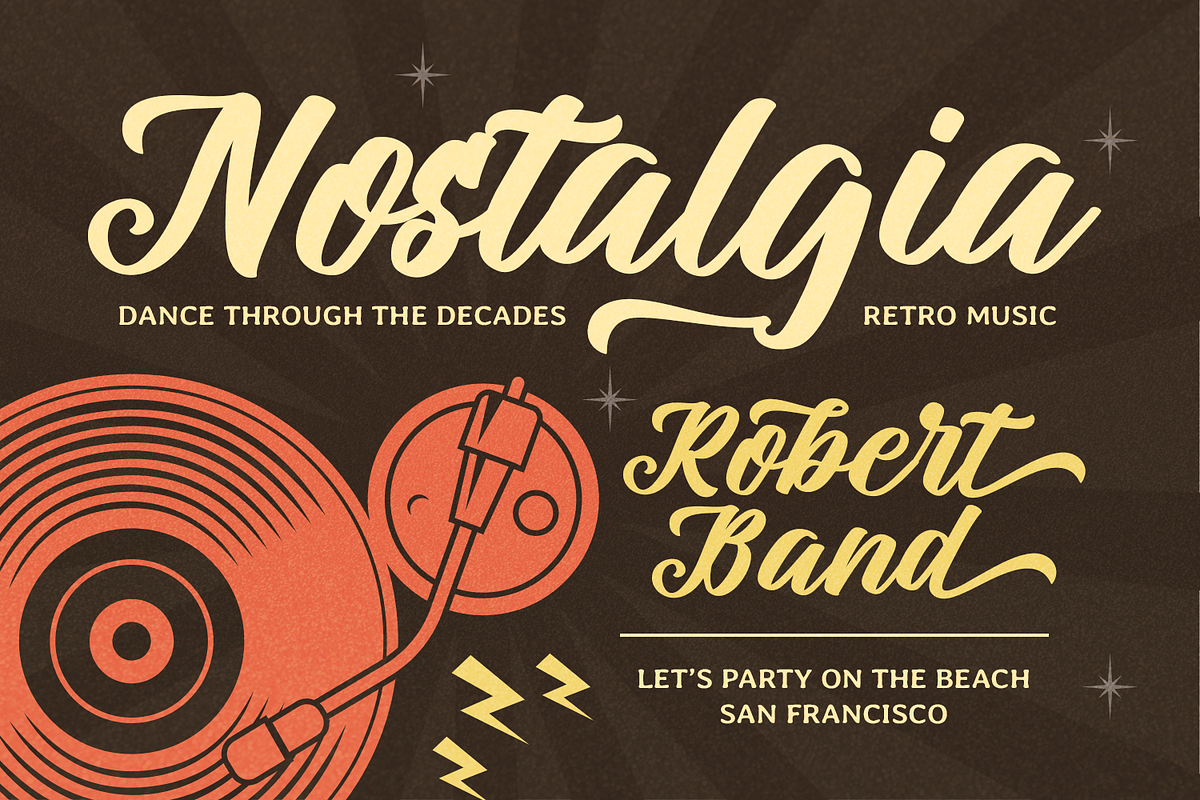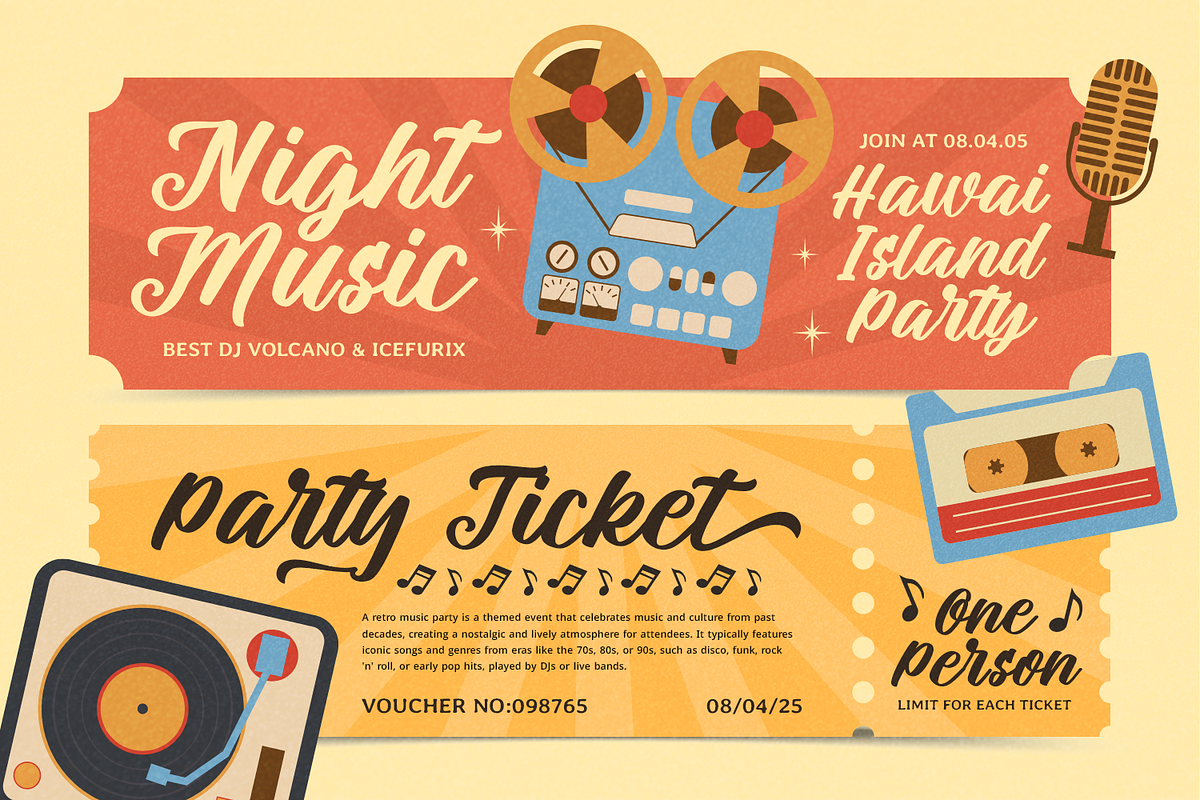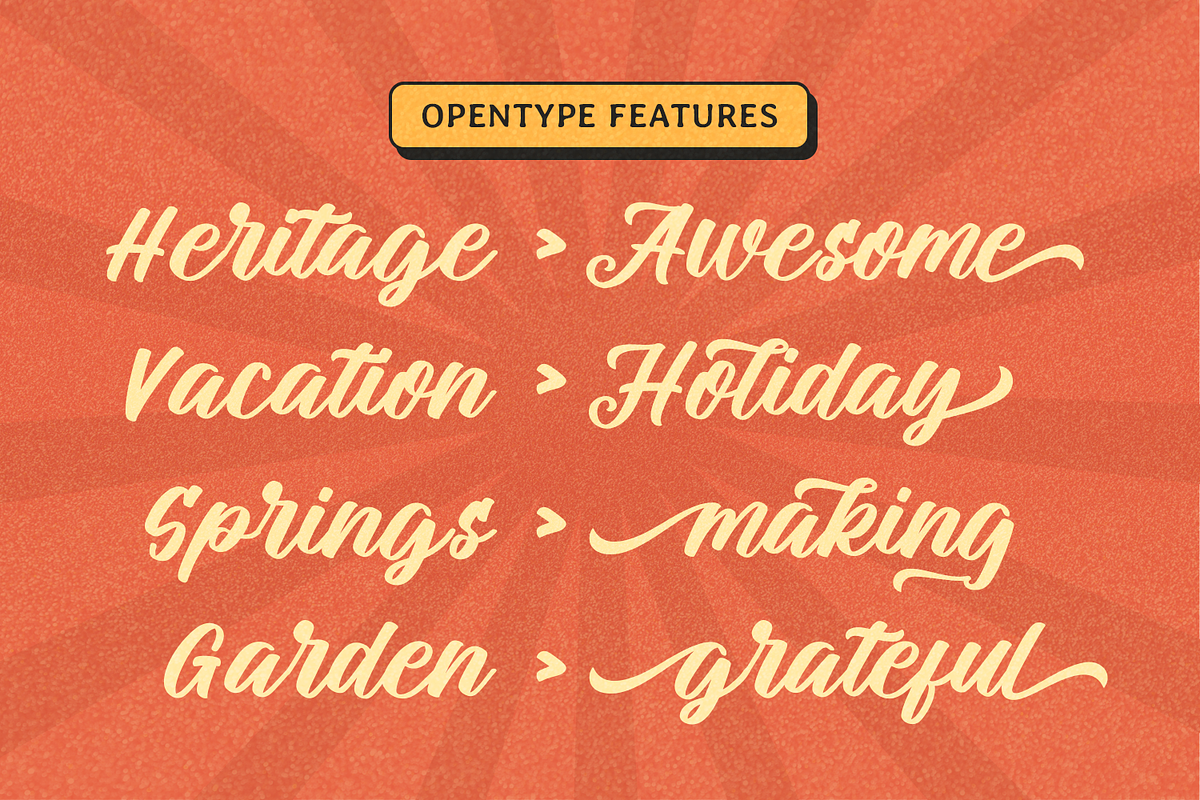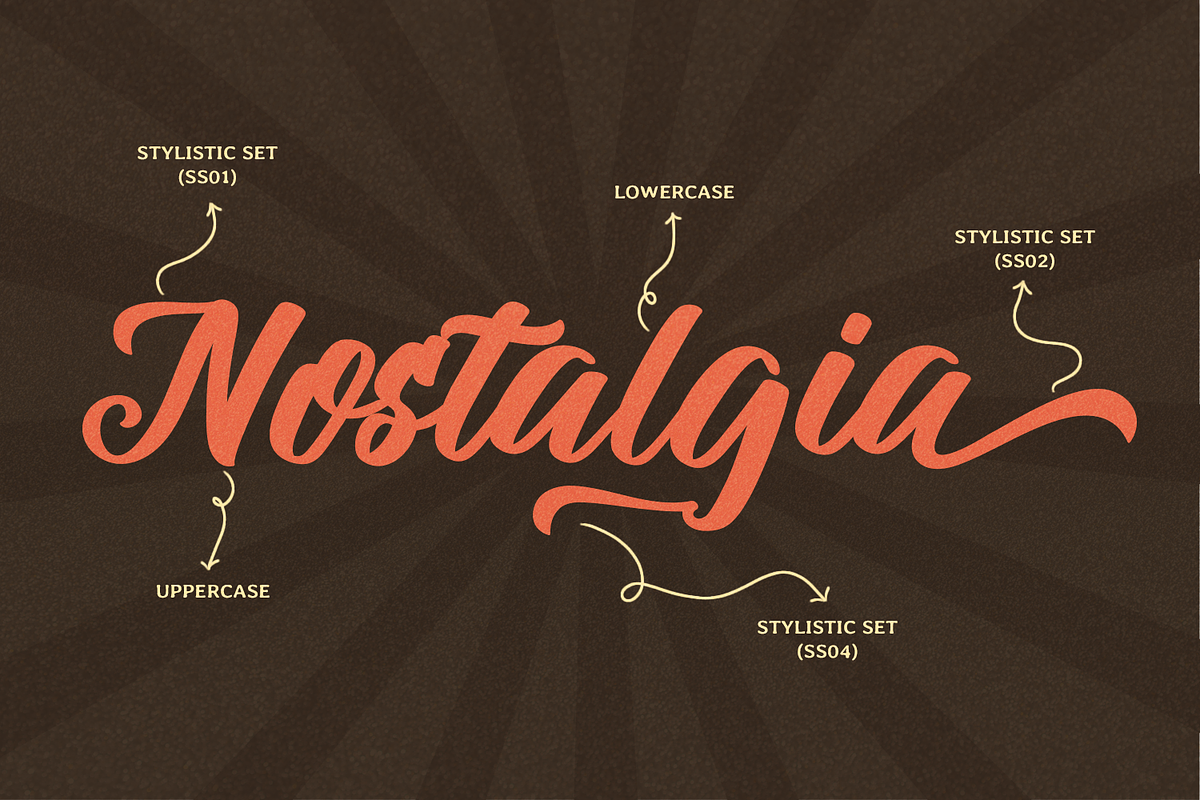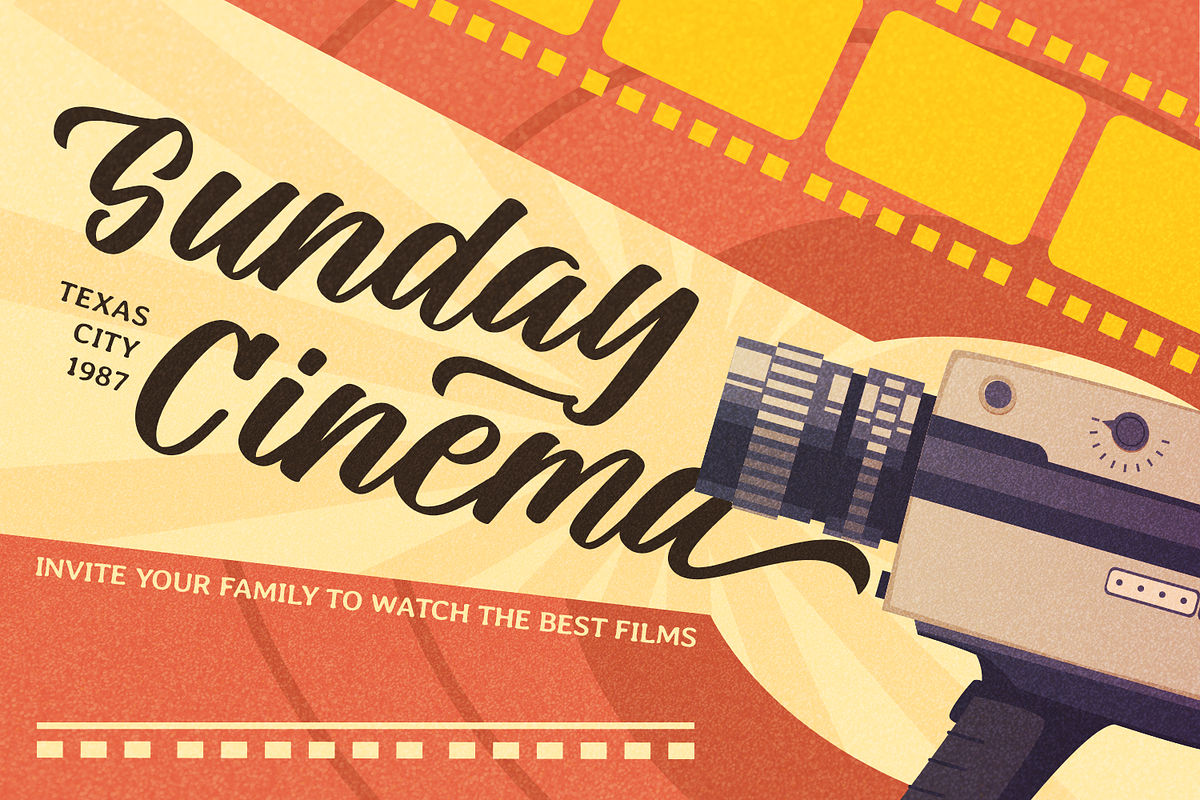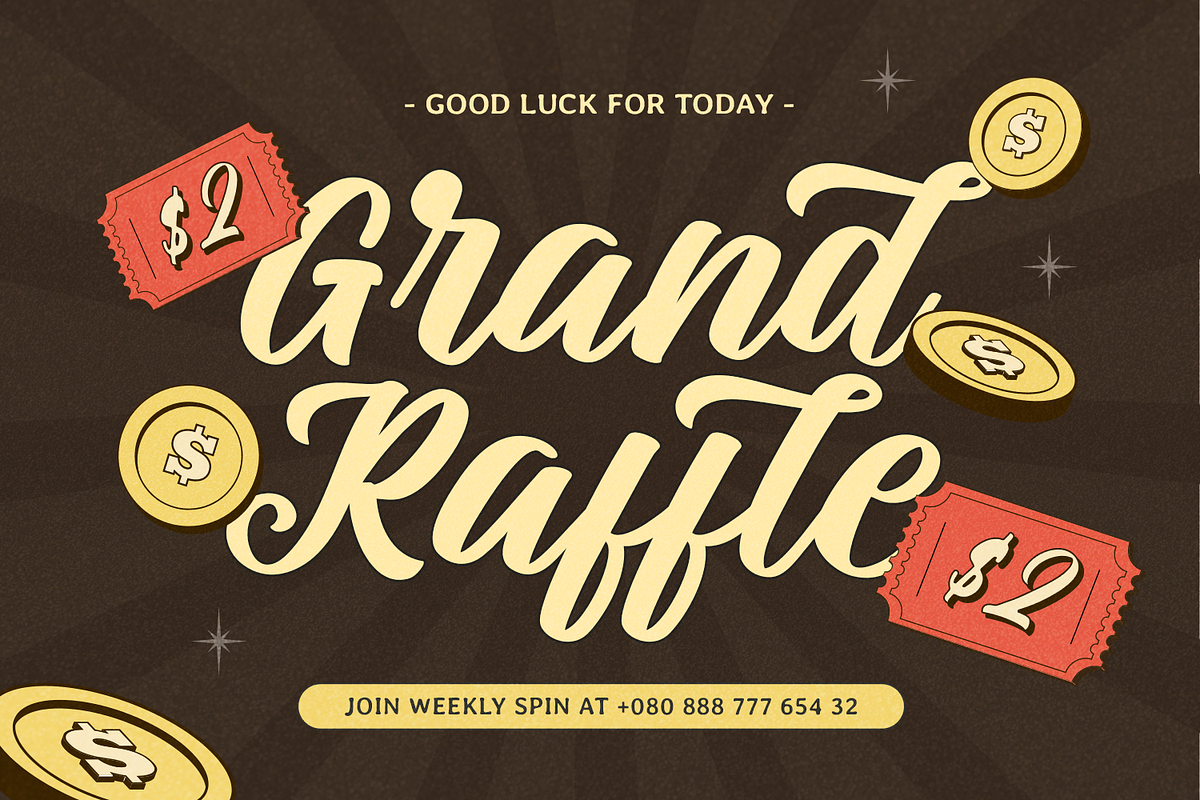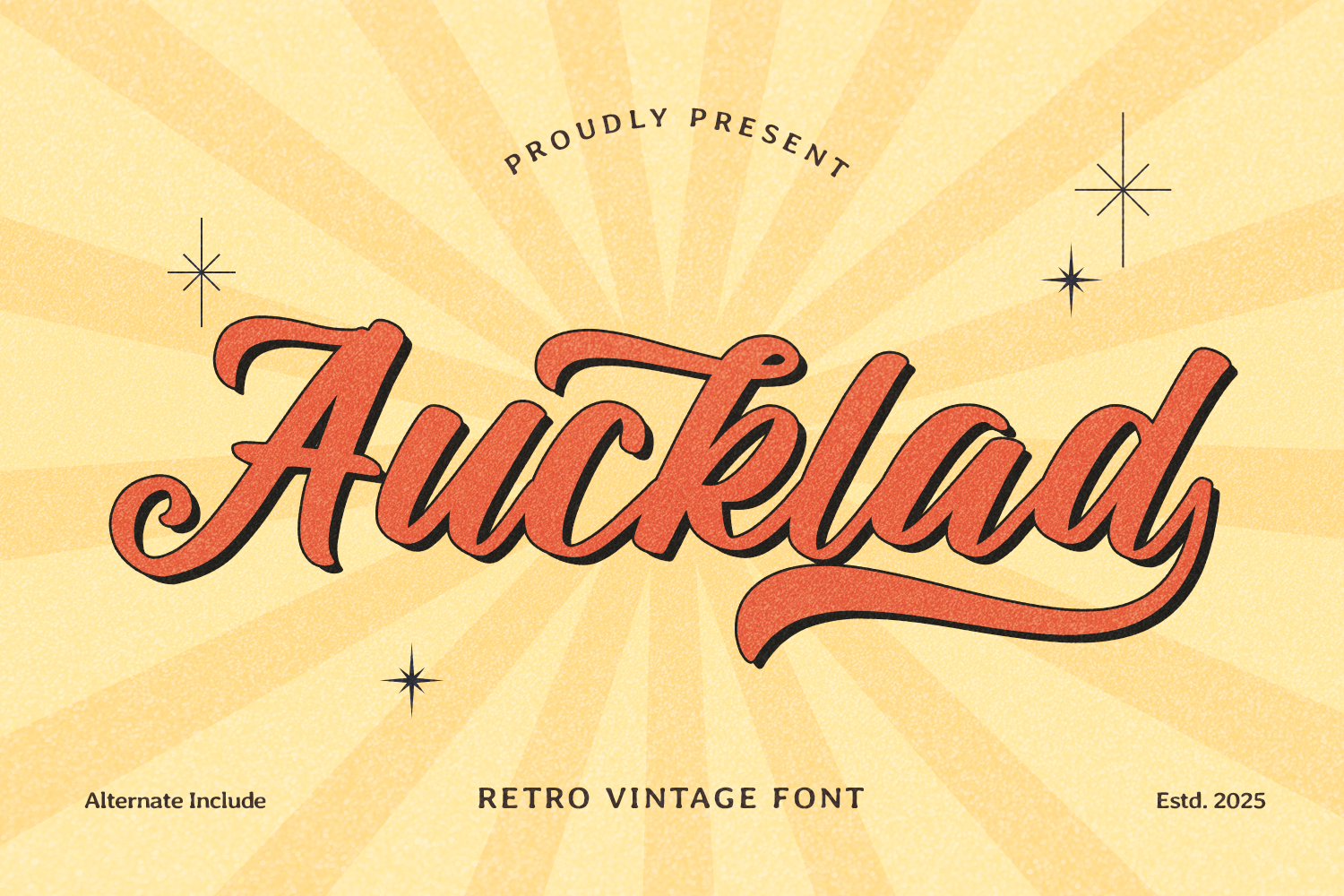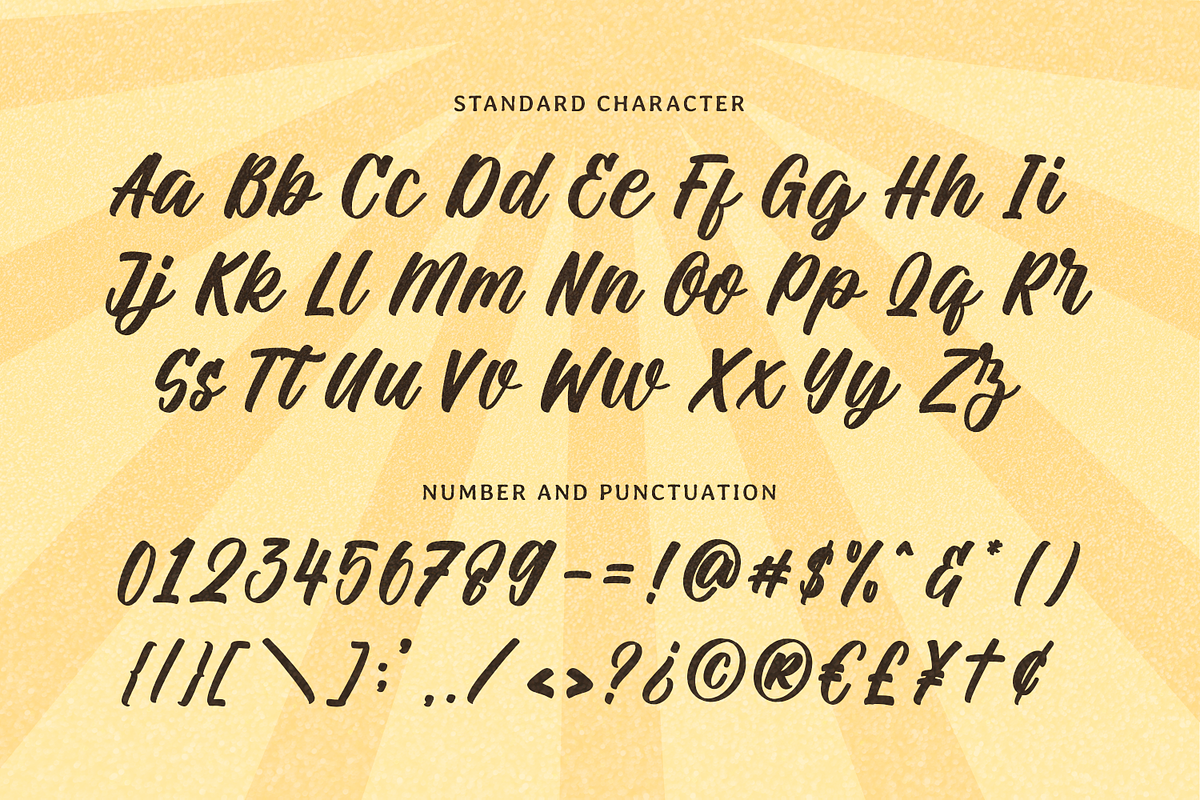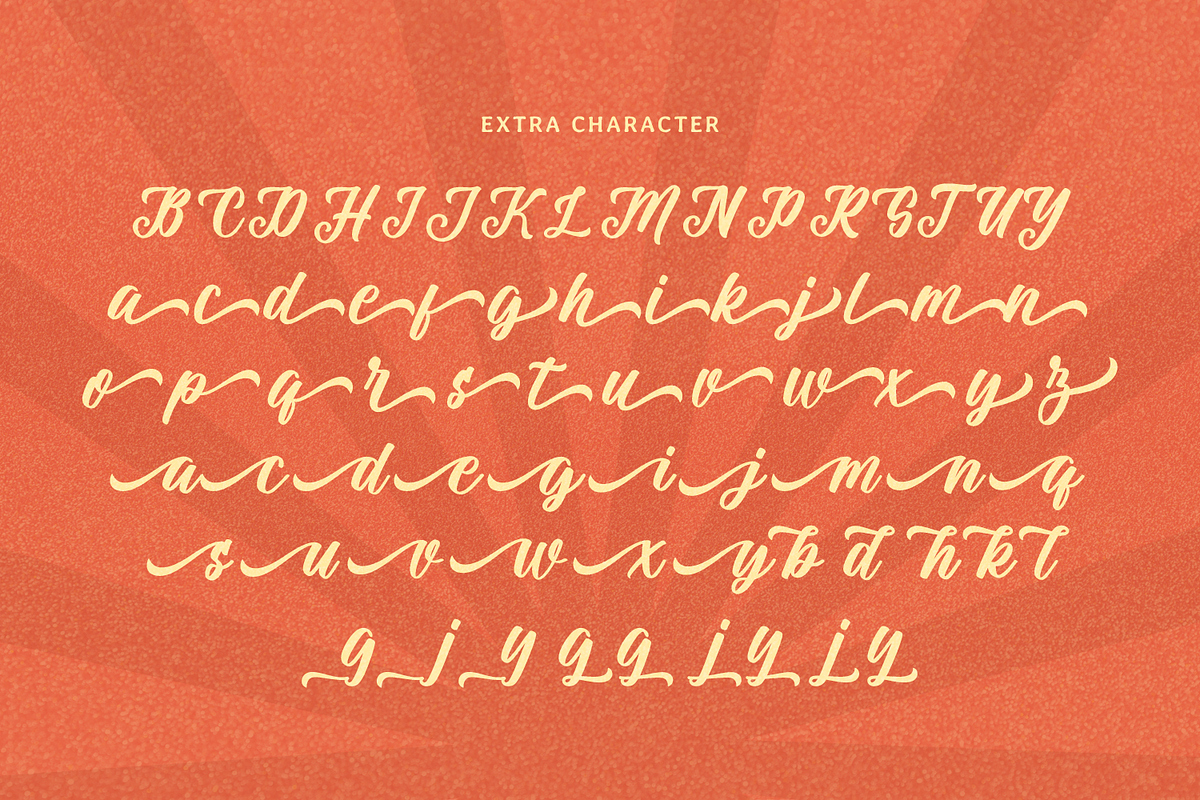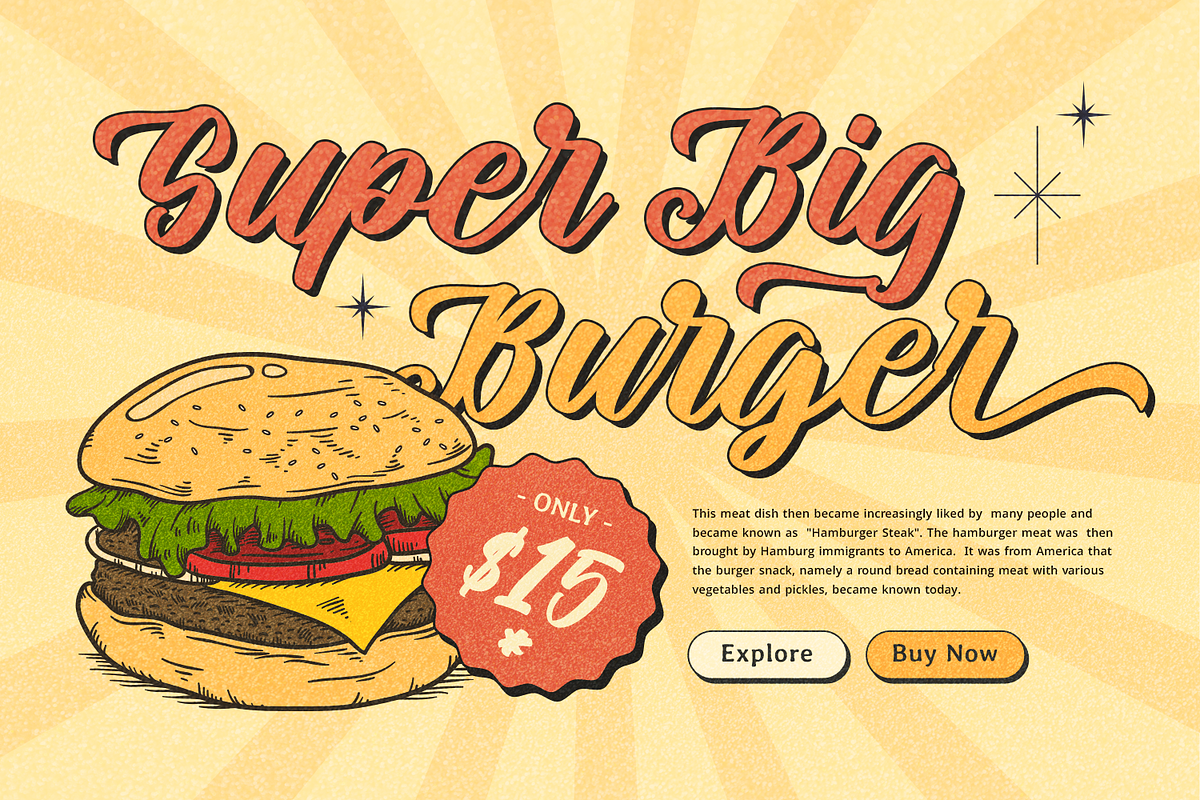
Auckland - Vintage Font
Auckland Font is a vintage-inspired script handwritten font that combines timeless charm with elegant craftsmanship. Its flowing strokes and smooth curves give it a retro aesthetic, perfect for creating designs with a classic yet sophisticated touch. Whether you’re working on invitations, signatures, or seasonal themes like Christmas, New Year, Easter, and Thanksgiving, Auckland Font adds a warm, nostalgic feel to any project.
Every character in Auckland Font is thoughtfully designed with beginning and ending swashes, forming graceful tails that enhance the font’s dynamic flow. Ideal for Cricut, embroidery, crafts, and lettering projects, its versatility shines in SVG formats for creative DIY projects. From vintage holiday cards to personalized gifts, this font brings a professional yet handmade quality to your designs.
Elevate your creativity with Auckland Font, the perfect blend of retro elegance and modern functionality. Add it to your toolkit today and transform your ideas into stunning works of art!
- Standard & Multilingual glyphs.
- Alternate glyphs & Unique Ligature.